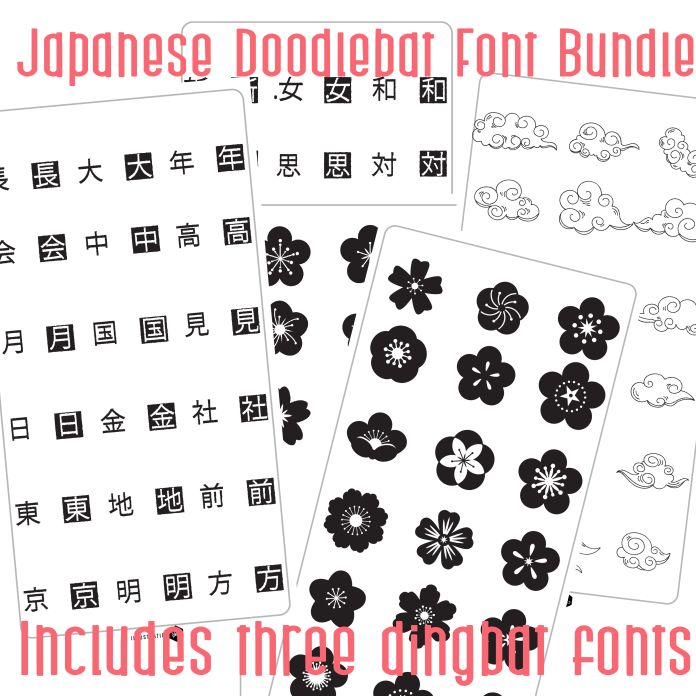
With three dingbats you get 104 total images with 52 common kanji (glyphs are A-Z and a-z with a-z being the same but in black box), 26 Japanese Blooms and 26 Japanese style clouds. Perfect for cards, crafts, gifts, decor, classrooms, planner stickers, scrap book pages and more!